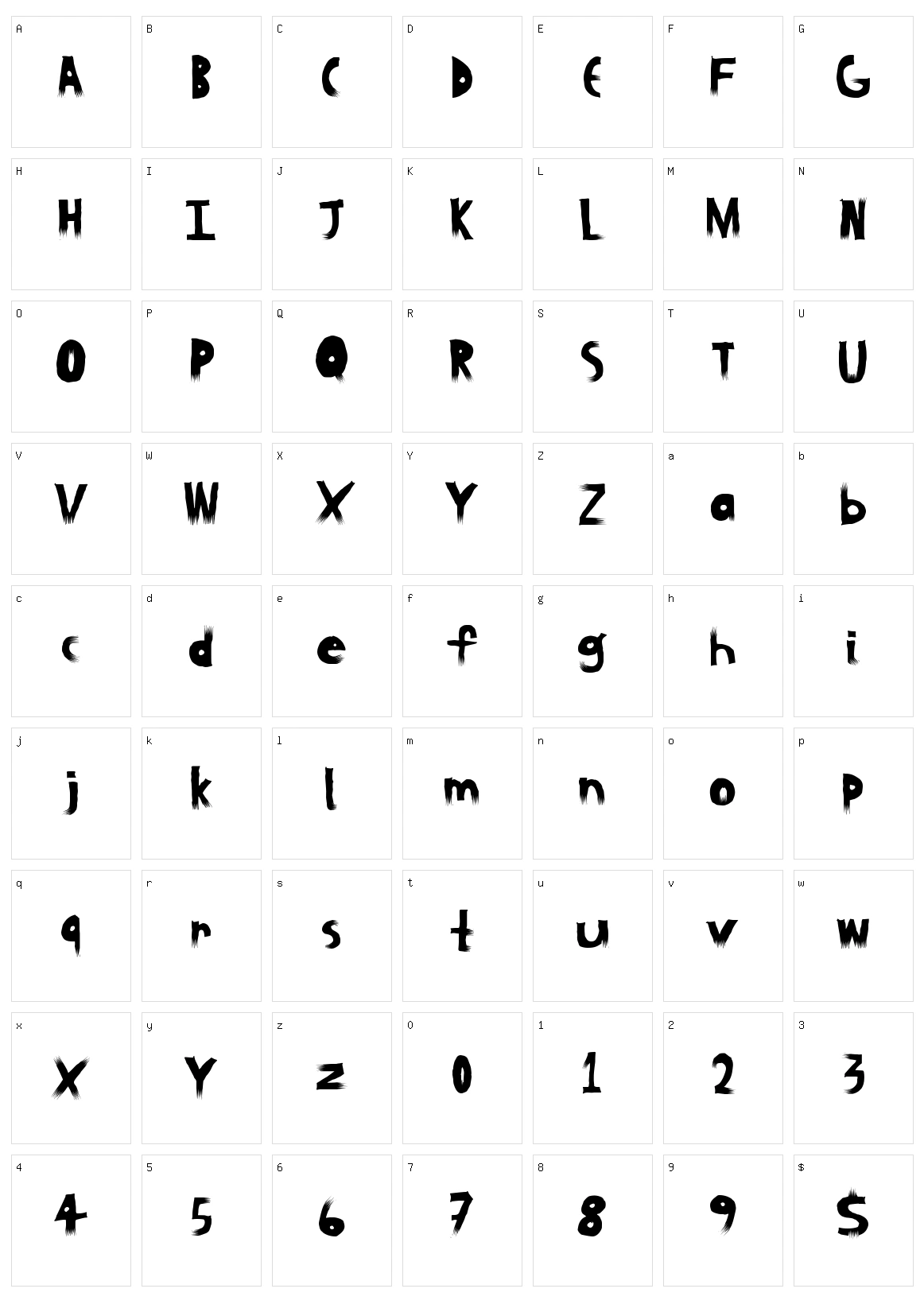
The free font BlockWood is carefully designed by Xerographer Fonts, showcasing a thoughtful balance of creativity and usability and falls under the Horror font style. When you download the ZIP file, it contains only 32 KB of font files, making it lightweight and quick to download. Please review the license details below to understand permitted usage and distribution rights. If license information is not available, we recommend using this font for personal projects only or contacting the author directly for commercial usage permissions.